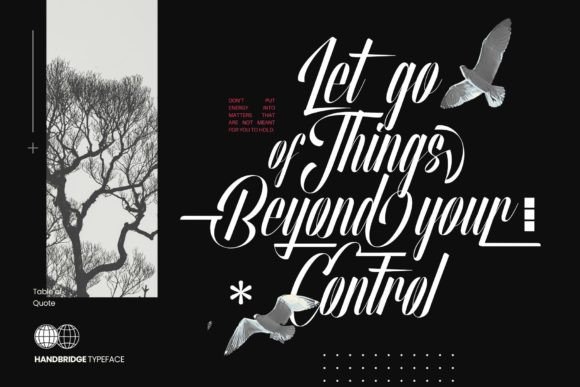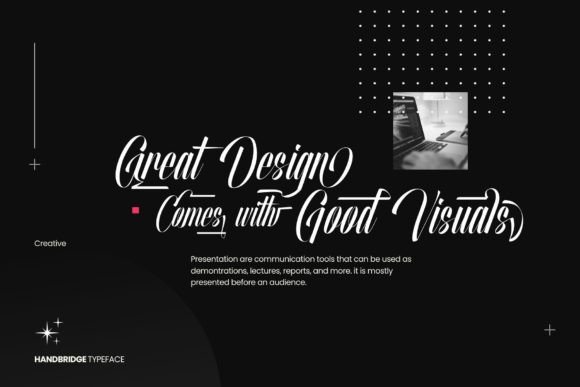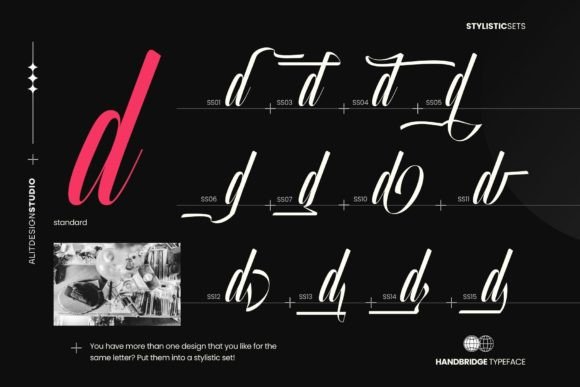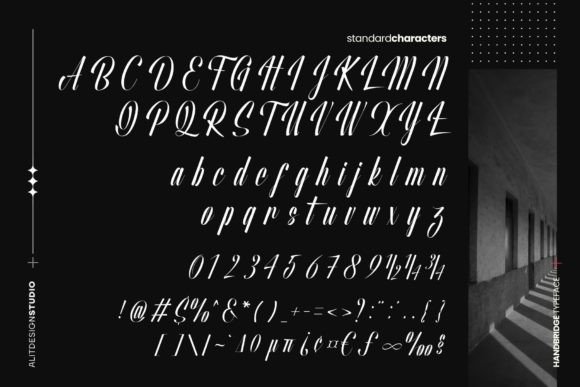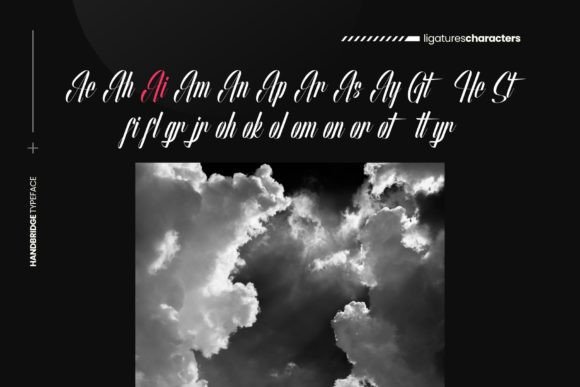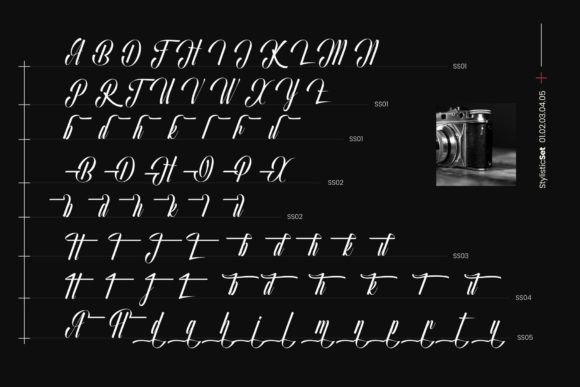
Unleash Your Design Potential with Handbridge Font
Are you tired of using the same old fonts in your design projects? Do you want to add a touch of elegance and sophistication to your typography? Look no further than Handbridge Font, a dynamic and fierce script that takes your design projects to new heights. In this article, we’ll introduce you to the Handbridge Font, a versatile and stylish font that’s perfect for designers and crafters alike.
Introducing Handbridge Script Font
Handbridge Script Font is a modern script font that’s designed to add a touch of elegance and fluidity to your design projects. This font is crafted for those who seek speed, fluidity, and a touch of sophistication in their typography. With its dynamic and fierce style, Handbridge Script Font is perfect for a wide range of design projects, from branding and advertising to packaging and digital media.
Key Features of Handbridge Font
- Dynamic and Fierce Style: Handbridge Script Font has a unique and energetic style that’s perfect for designs that require a bold and attention-grabbing typography.
- Elegant and Sophisticated: Despite its bold style, Handbridge Script Font has an elegant and sophisticated feel that’s perfect for high-end designs and luxury brands.
- Fluid and Connected: The font has a fluid and connected style that creates a sense of movement and energy, making it perfect for designs that require a sense of dynamism.
- Versatile and Adaptable: Handbridge Script Font is a versatile font that can be used in a wide range of design projects, from digital media to print materials.
Use Cases for Handbridge Font
Handbridge Script Font is a versatile font that can be used in a wide range of design projects. Here are some use cases where Handbridge Font can shine:
- Branding and Advertising: Use Handbridge Script Font to create bold and attention-grabbing logos, ads, and marketing materials that require a dynamic and fierce typography.
- Packaging Design: Add a touch of elegance and sophistication to your packaging designs with Handbridge Script Font, perfect for luxury brands and high-end products.
- Digital Media: Use Handbridge Script Font in your digital media projects, such as video titles, social media graphics, and website headers, to add a touch of dynamism and energy.
- Stationery and Print Materials: Create elegant and sophisticated stationery and print materials, such as business cards, letterheads, and brochures, with Handbridge Script Font.
Tips for Using Handbridge Font
Here are some tips for using Handbridge Script Font in your design projects:
- Experiment with Font Sizes: Handbridge Script Font looks great in a variety of font sizes, from large headings to smaller body text.
- Play with Colors: Try using different colors to add contrast and visual interest to your designs.
- Mix and Match with Other Fonts: Handbridge Script Font pairs well with other fonts, so don’t be afraid to experiment with different font combinations.
In conclusion, Handbridge Script Font is a dynamic and fierce script font that’s perfect for designers and crafters who seek speed, fluidity, and a touch of elegance in their typography. With its versatile and adaptable style, Handbridge Script Font can be used in a wide range of design projects, from branding and advertising to packaging and digital media. So why settle for ordinary fonts when you can unleash your design potential with Handbridge Font?